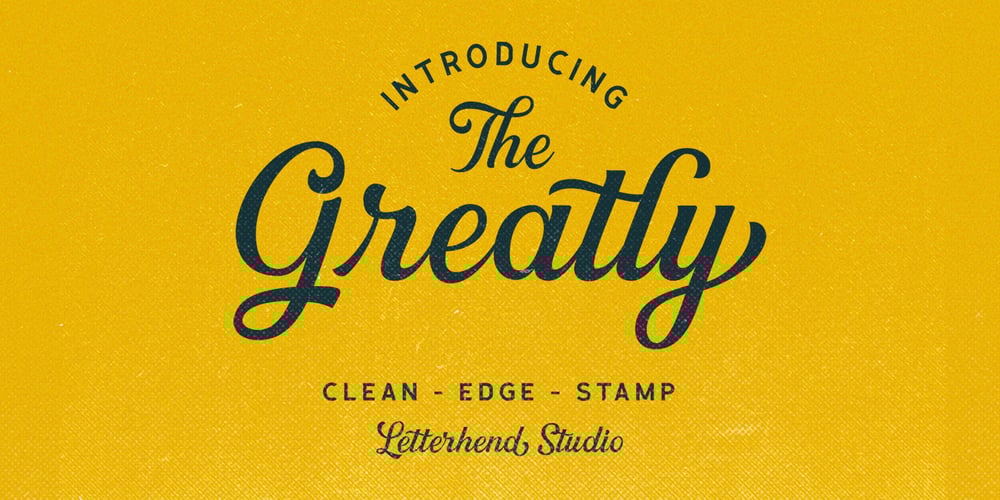
Greatly Font Family was designed by Hendry Juanda and published by Letterhend. Greatly contains 3 styles and family package options. Greatly Script gives you a classic feel and is really perfect for you who needs a typeface for especially logotype, apparel, invitations, branding, packaging, advertising, and more. Greatly comes in uppercase, lowercase, with punctuations, symbols and numerals, stylistic alternate sets, ligatures, also multi-lingual support and is already PUA encoded.